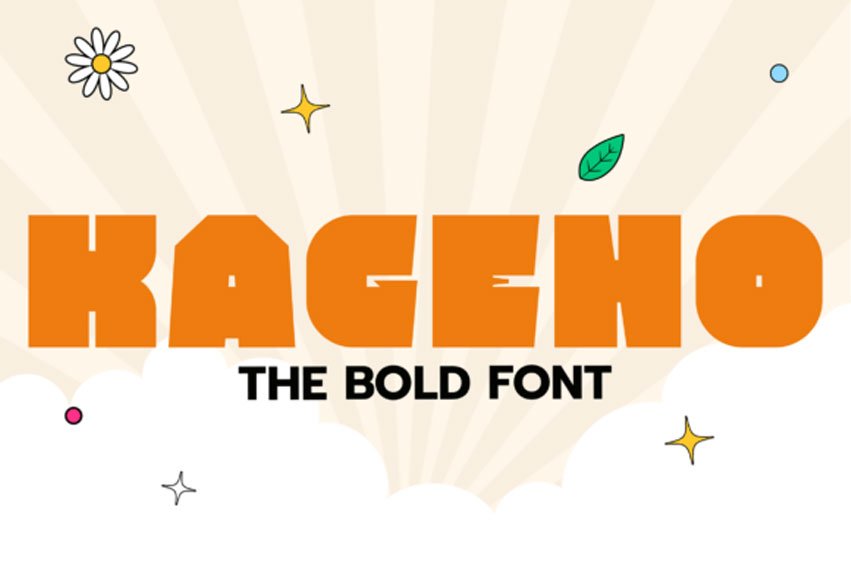
Kageno Bold Font is a bold display font inspired by retro posters, playful branding, and energetic headlines. Built with chunky geometric shapes, rounded corners, and quirky cut details, it creates a strong visual impact while maintaining a fun and approachable personality.
Perfect for logos, packaging, food brands, festival posters, children’s products, social media graphics, sports designs, and eye-catching editorial titles, Kageno is designed to make every message stand out with confidence.